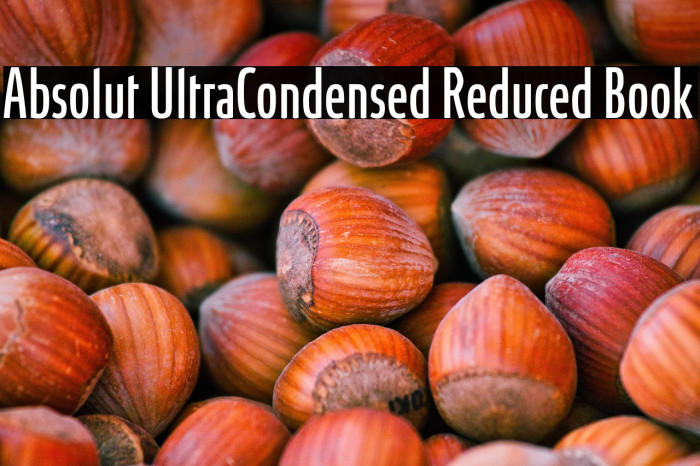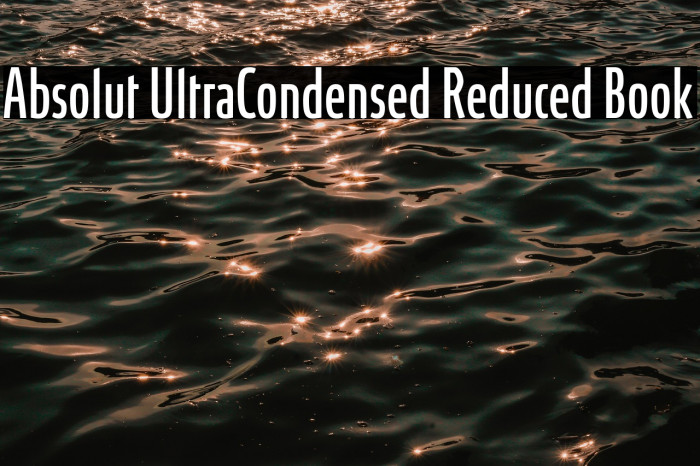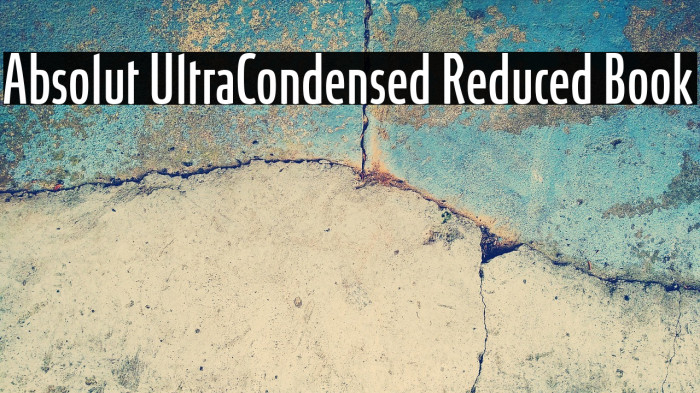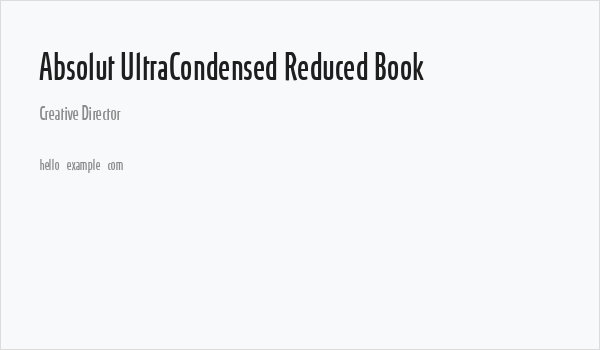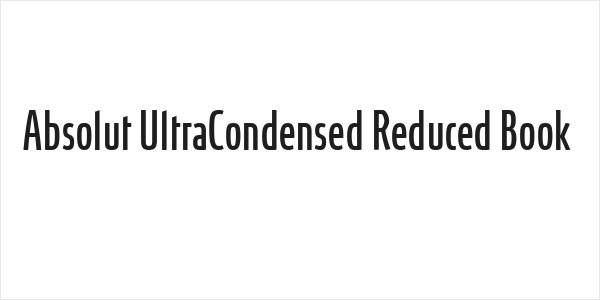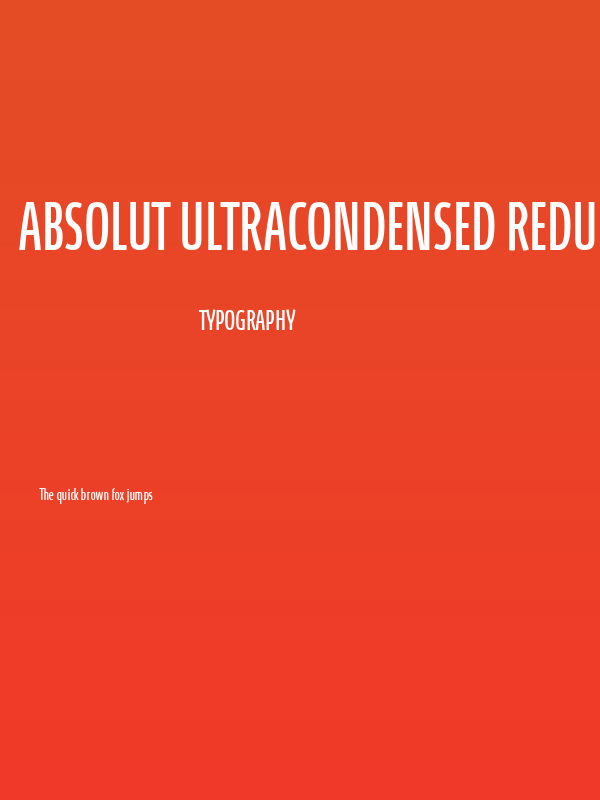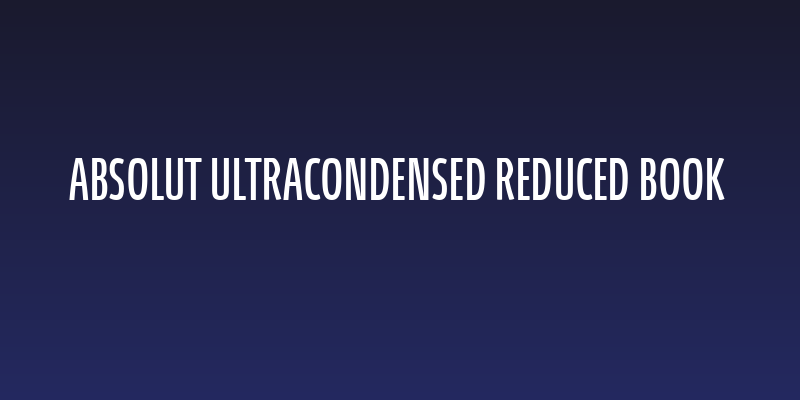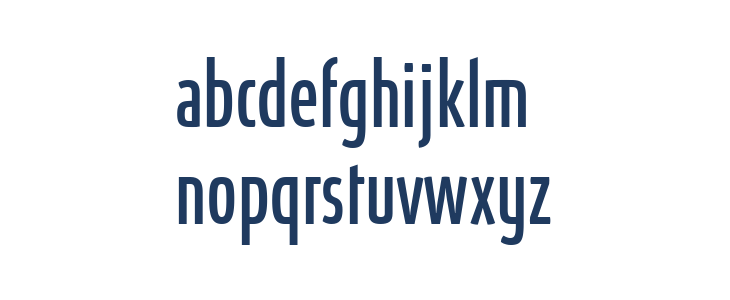
Absolut UltraCondensed Reduced Book Font
Absolut UltraCondensed Reduced Book Description
This font features a highly condensed sans-serif style, characterized by its tall, narrow letterforms. The strokes are consistent in width, giving it a uniform appearance. The uppercase and lowercase letters are designed with minimal contrast, maintaining a sleek and modern look. The font's vertical emphasis is complemented by slightly rounded corners, adding a subtle softness to the otherwise sharp and geometric shapes. Its clean lines and efficient use of space make it ideal for applications where space is limited but readability is crucial.
| Proposed Projects | Ideal for headlines, posters, and branding where space is limited but impact is needed. |